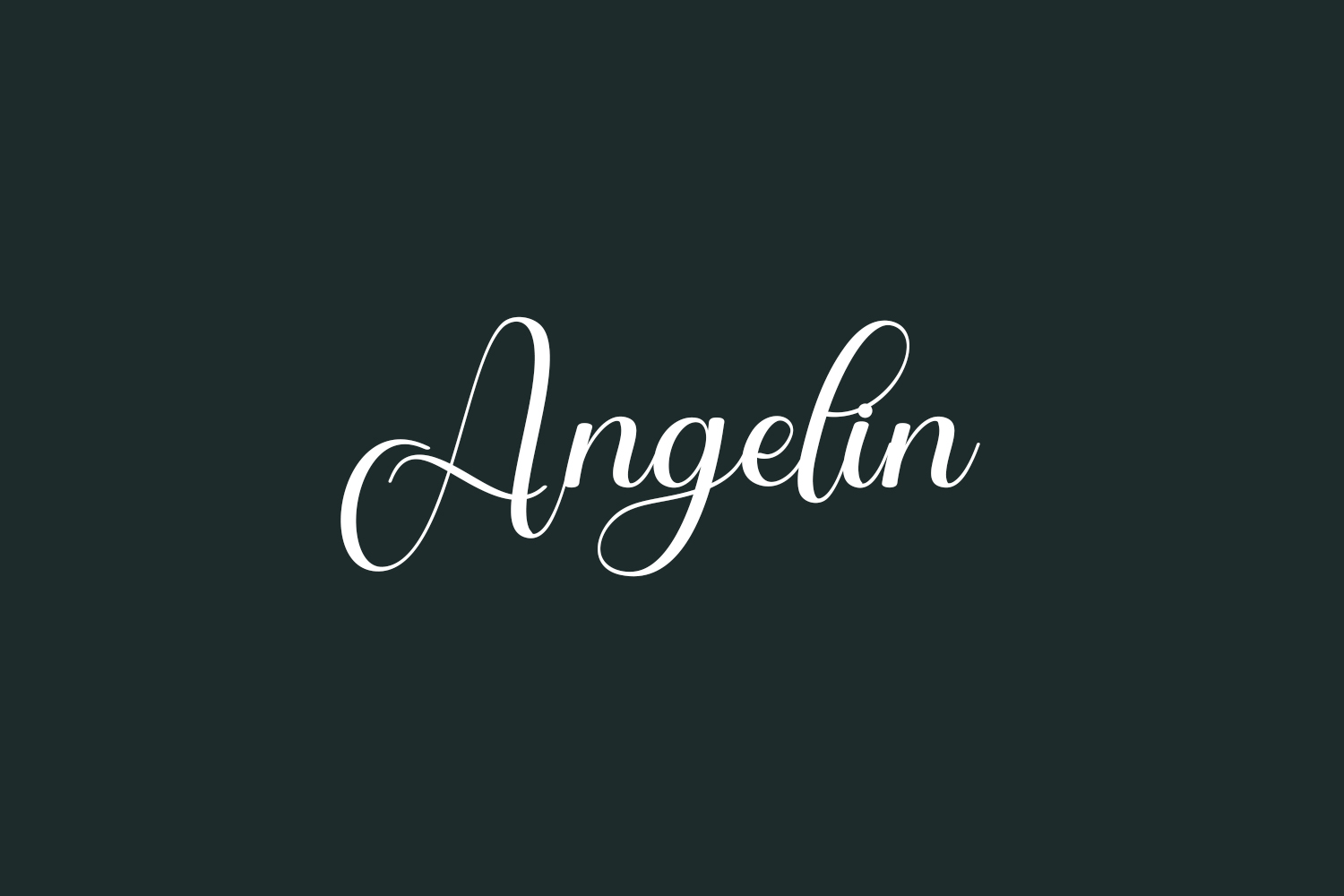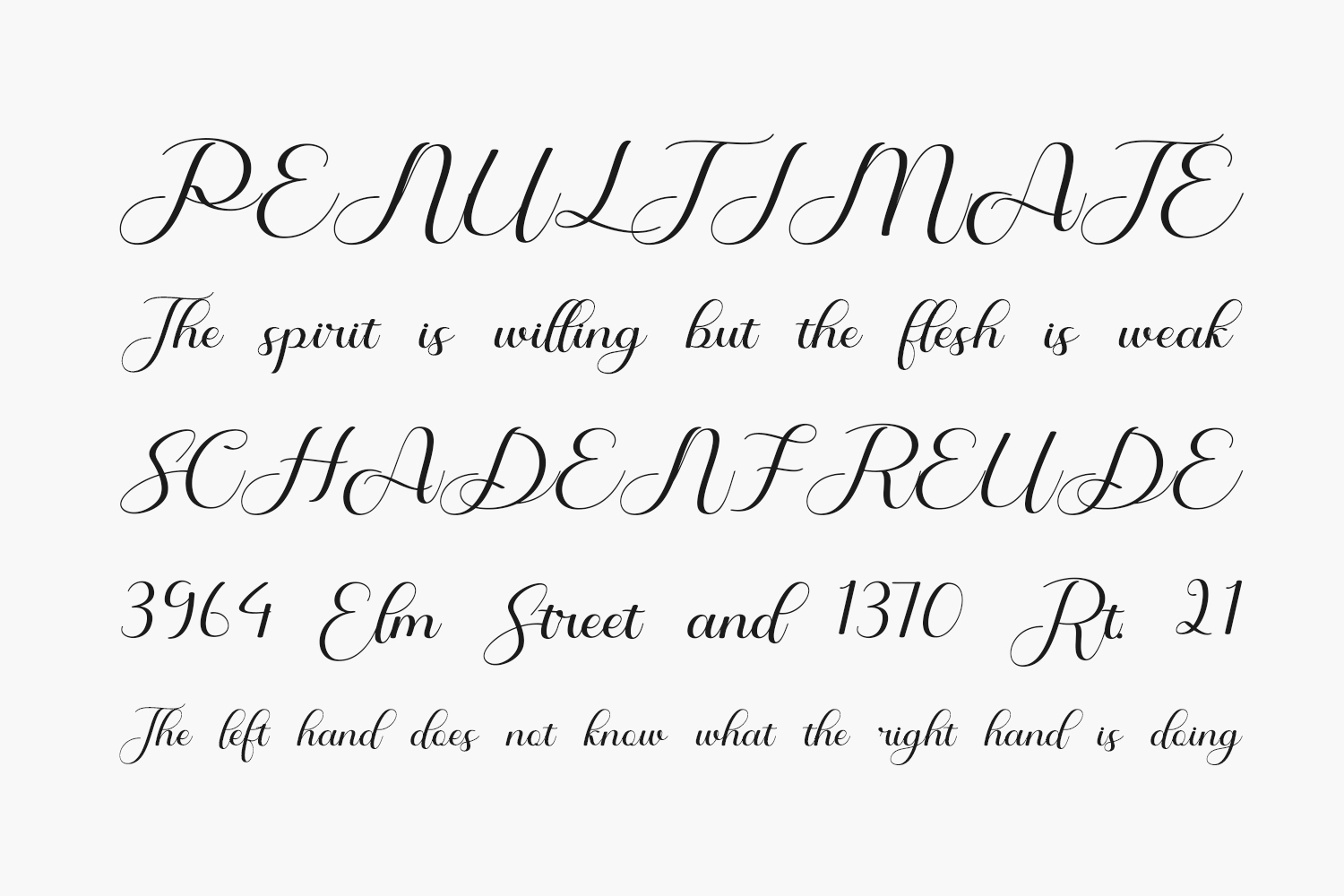
Angelin Free Font is a unique and elegant handwritten font. It looks beautiful on a variety of designs requiring a personalized style, such as wedding invitations, thank you cards, weddings, greeting cards, logos, and so on. Angelin Free Font was designed by Fiqiart and is free for personal use only. Please purchase the full version for commercial use.